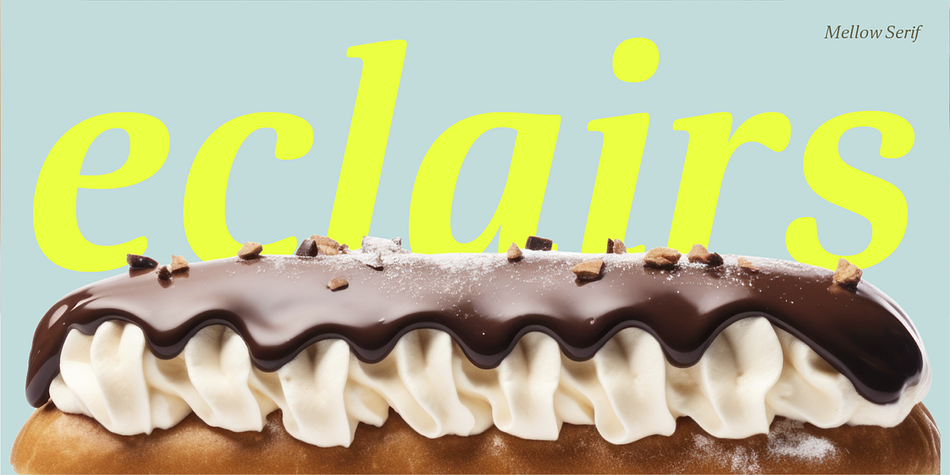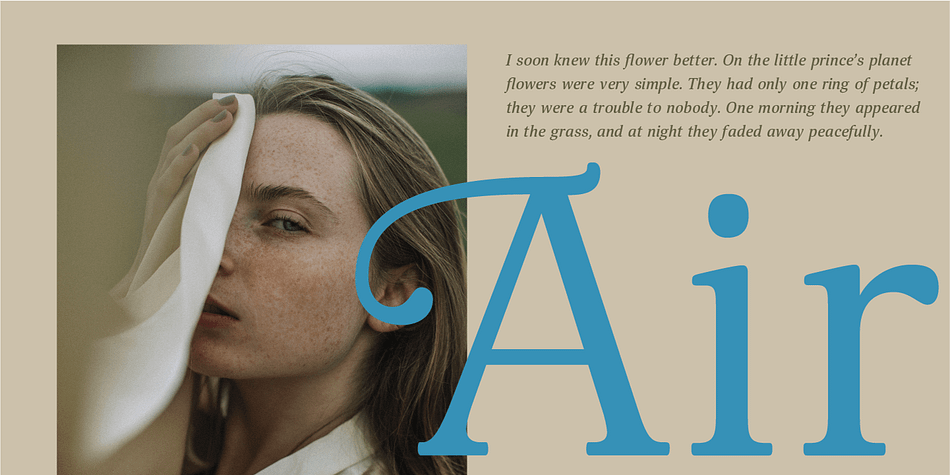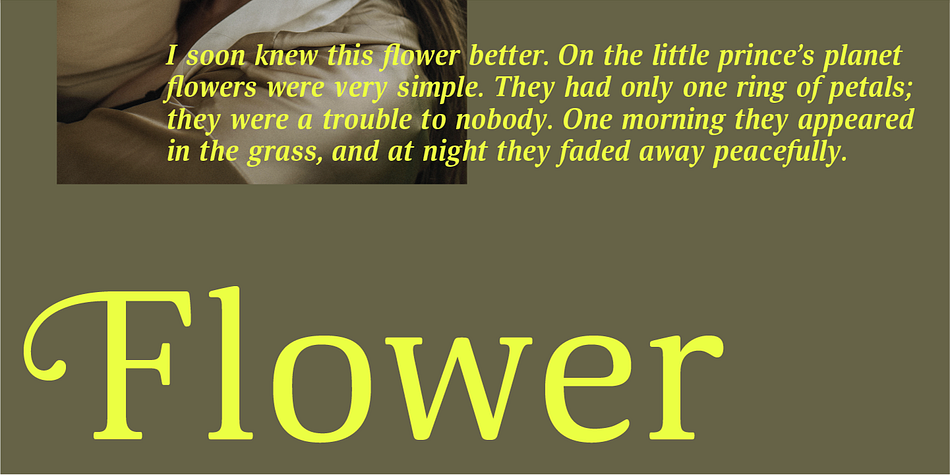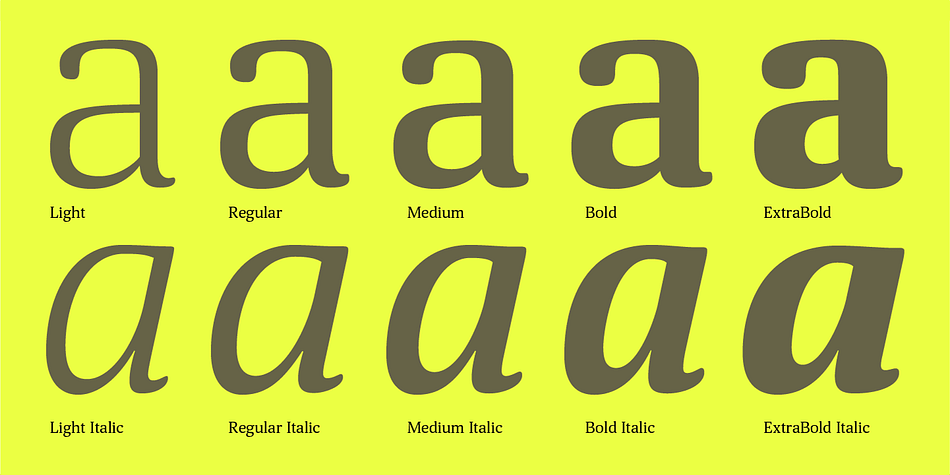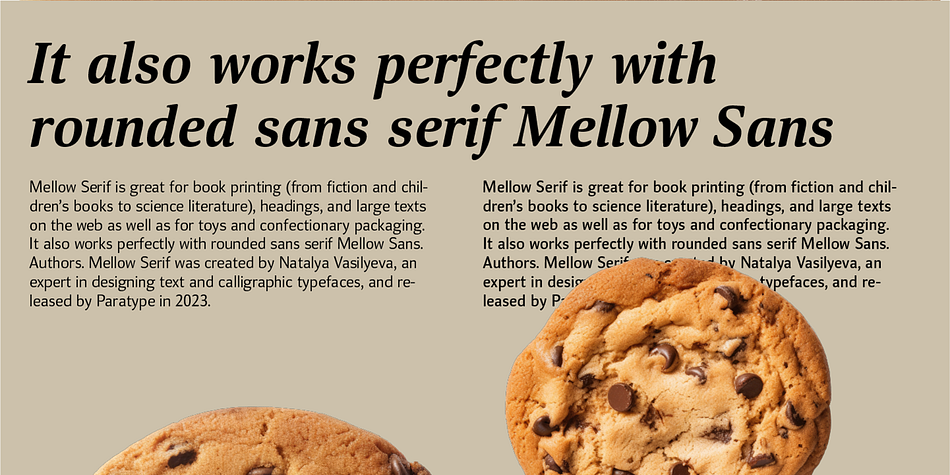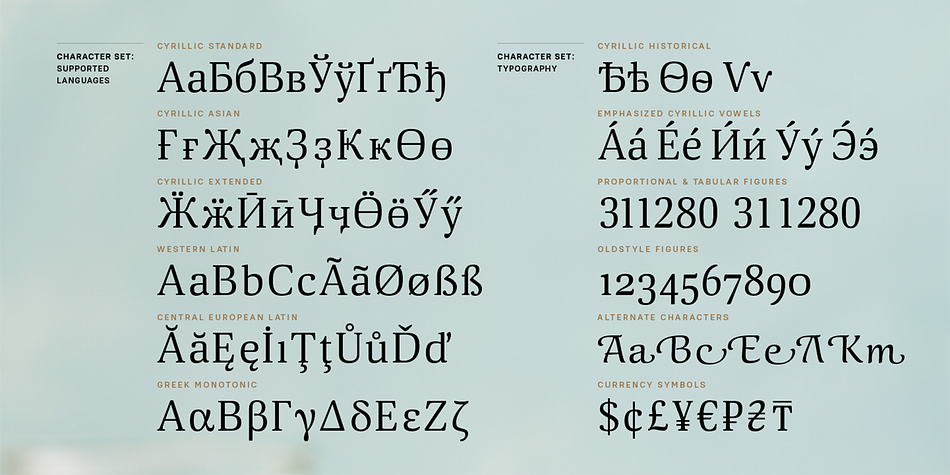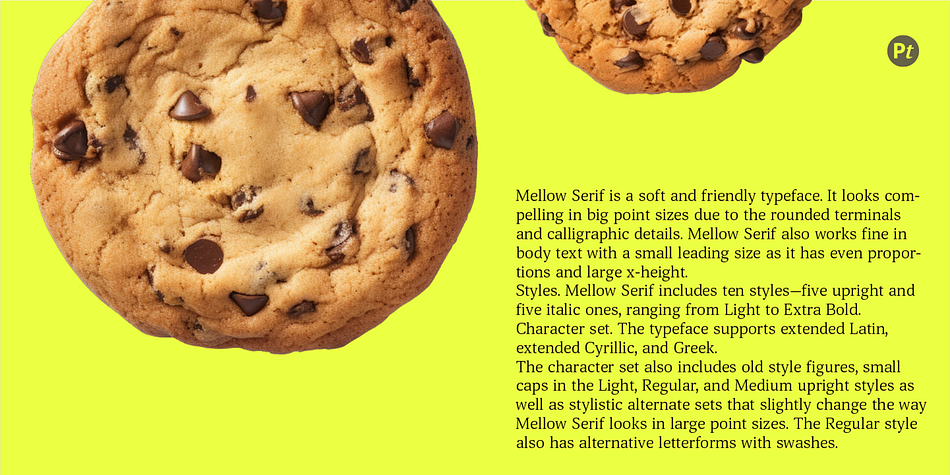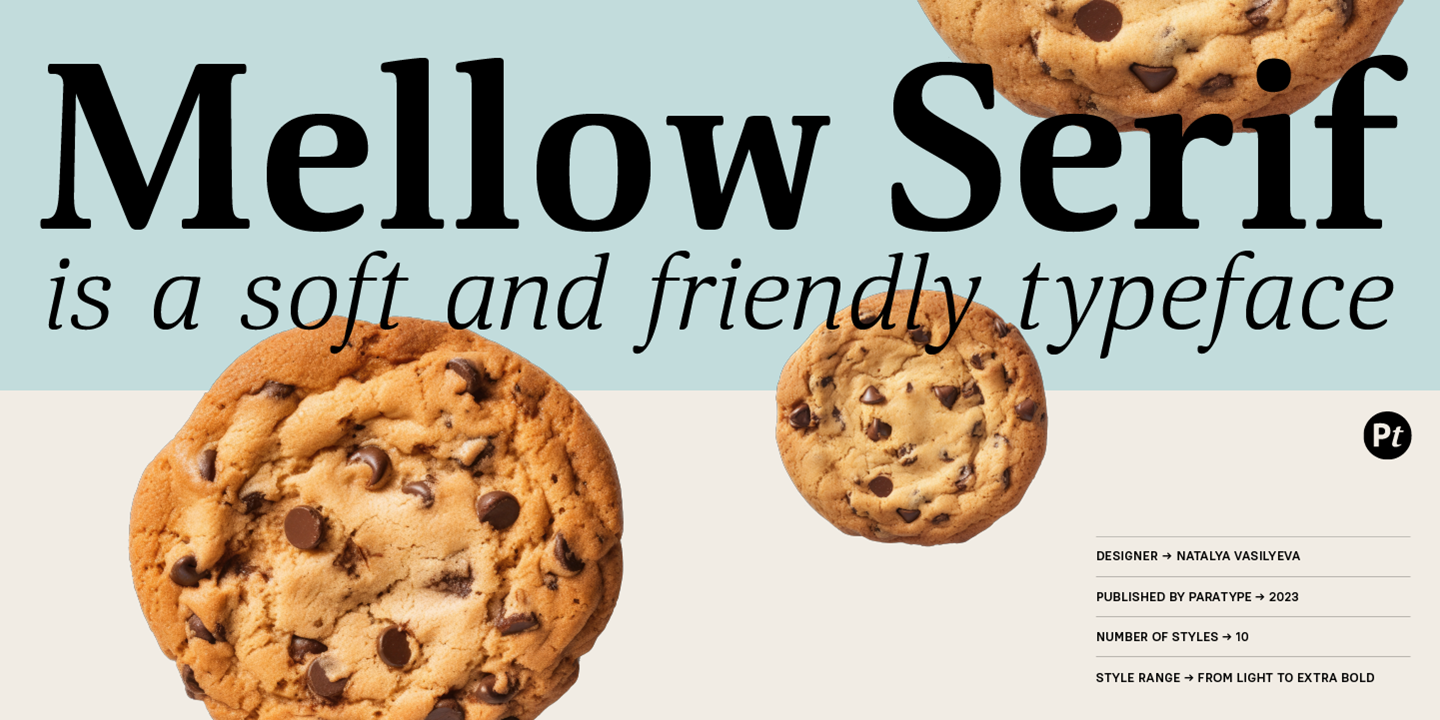
Mellow Serif
Designed by Natalia Vasilyeva, Mellow Serif is a serif font family. This typeface has ten styles and was published by ParaType.
Mellow Serif is a soft and friendly typeface. It looks compelling in large point sizes due to the rounded terminals and calligraphic details. Mellow Serif also works well in body text with a small leading size as it has even proportions and a large x-height.
Mellow Serif includes ten styles—five upright and five italic, ranging from Light to Extra Bold.
The typeface supports extended Latin, extended Cyrillic, and Greek.
The character set also includes old style figures, small caps in the Light, Regular, and Medium upright styles as well as stylistic alternate sets that slightly change the way Mellow Serif looks in large point sizes. The Regular style also has alternative letterforms with swashes.
Mellow Serif is great for book printing (from fiction and children’s books to science literature), headings, and large texts on the web as well as for toys and confectionary packaging. It also works perfectly with a rounded sans serif Mellow Sans.
Mellow Serif was created by Natalya Vasilyeva, an expert in designing text and calligraphic typefaces, and released by Paratype in 2023.